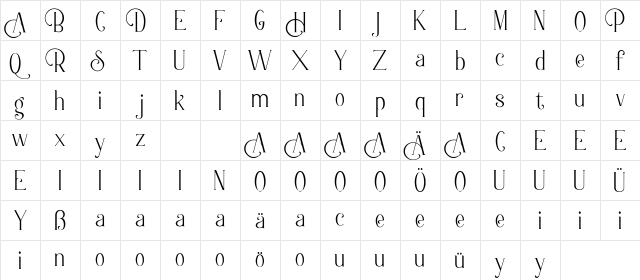
Berlin Collection Regular
| Foundry | Han's Co. |
| Designer | Burhan Afif |
Design Context for Berlin Collection Typeface
Berlin Collection is a composed and adaptable typeface that performs quietly and consistently across a wide range of design contexts.